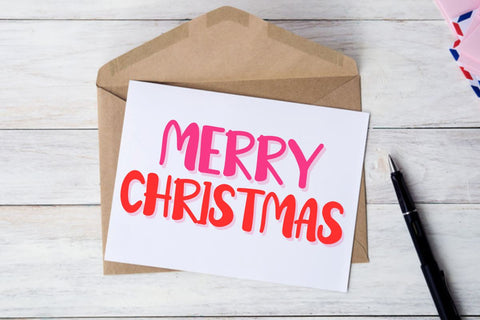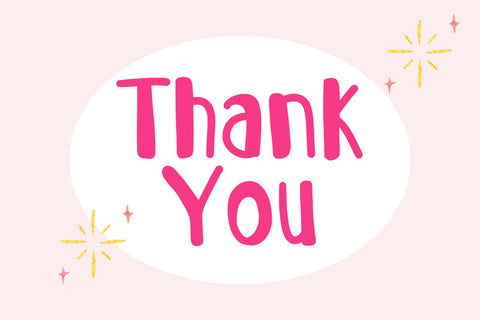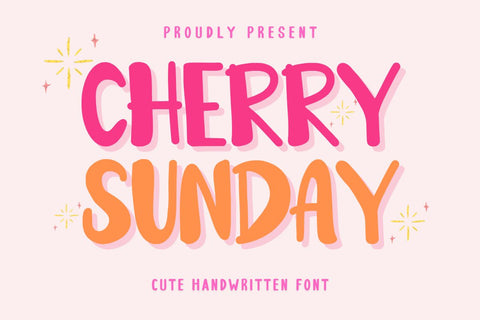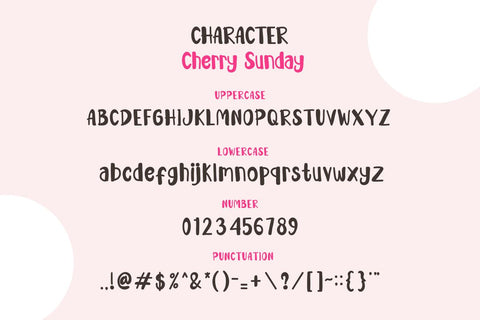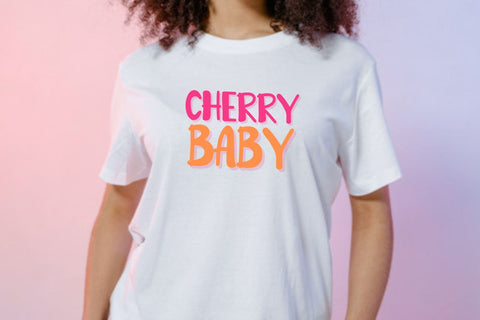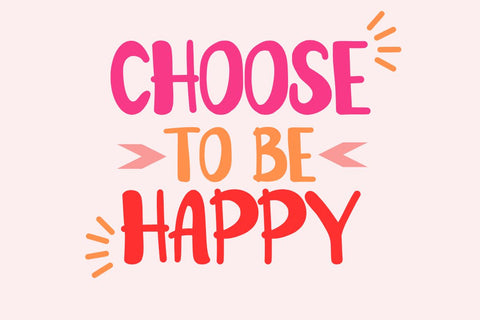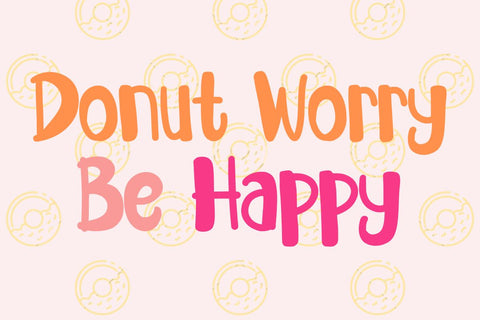
Cherry Sunday - Cute Handwritten Display Font
Hi, Introducing Cherry Sunday - Cute Handwritten Display Font
A display font with a beautiful and adorable handwriting style. This font can perfect your creativity. This font is cool for t-shirts, stickers, mugs, prints, labels, crafts, SVG cut files, Cricut, wall art, social media, web, branding, business, and many other ideas.